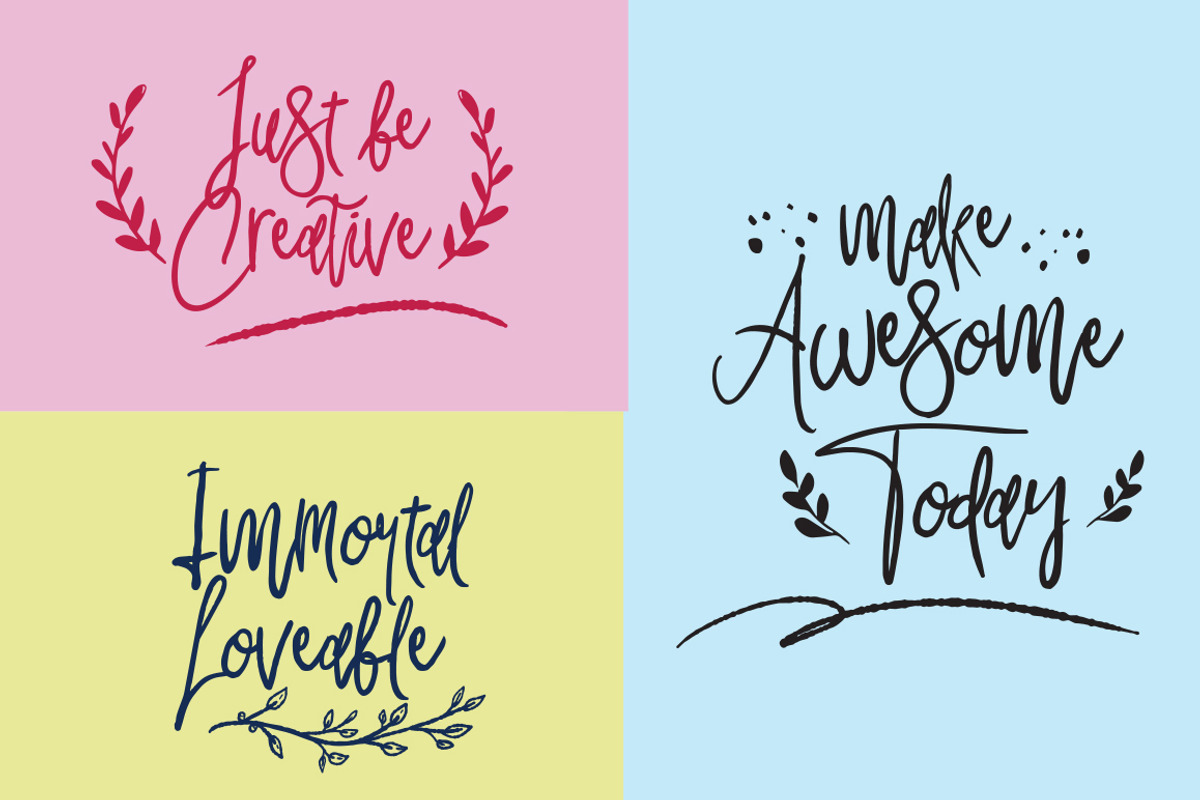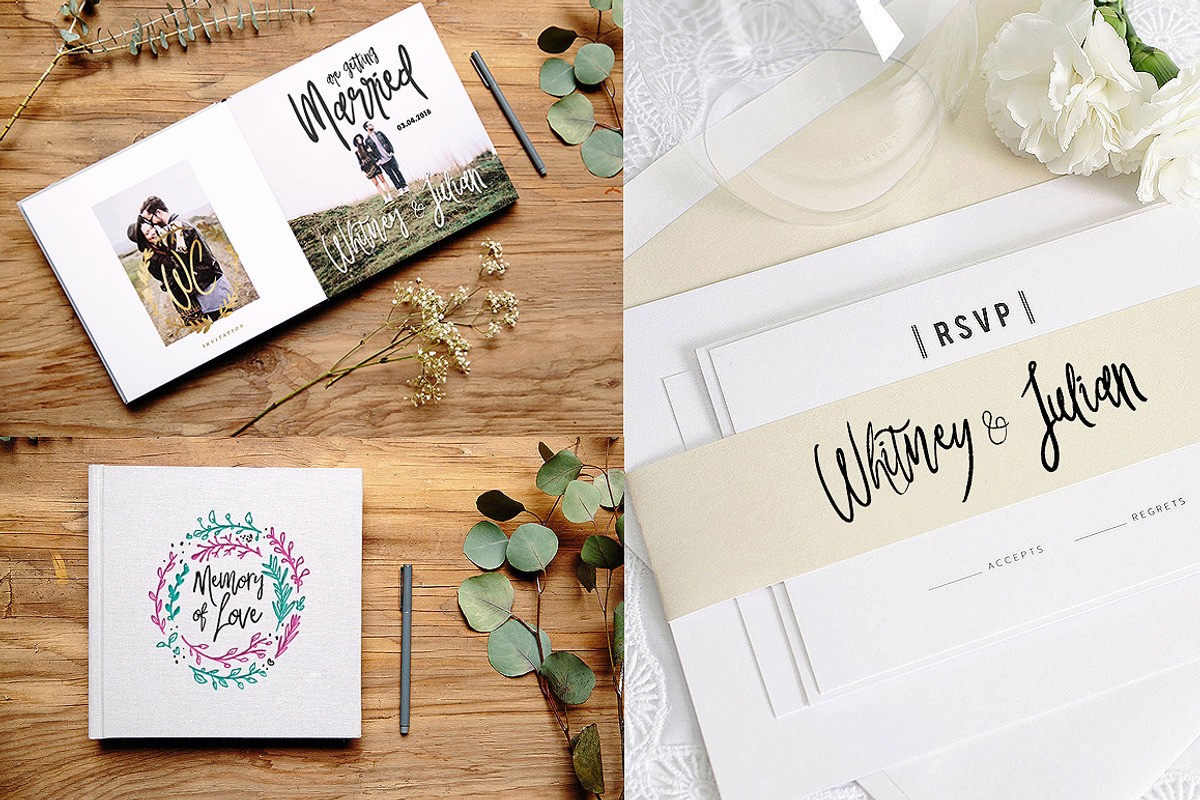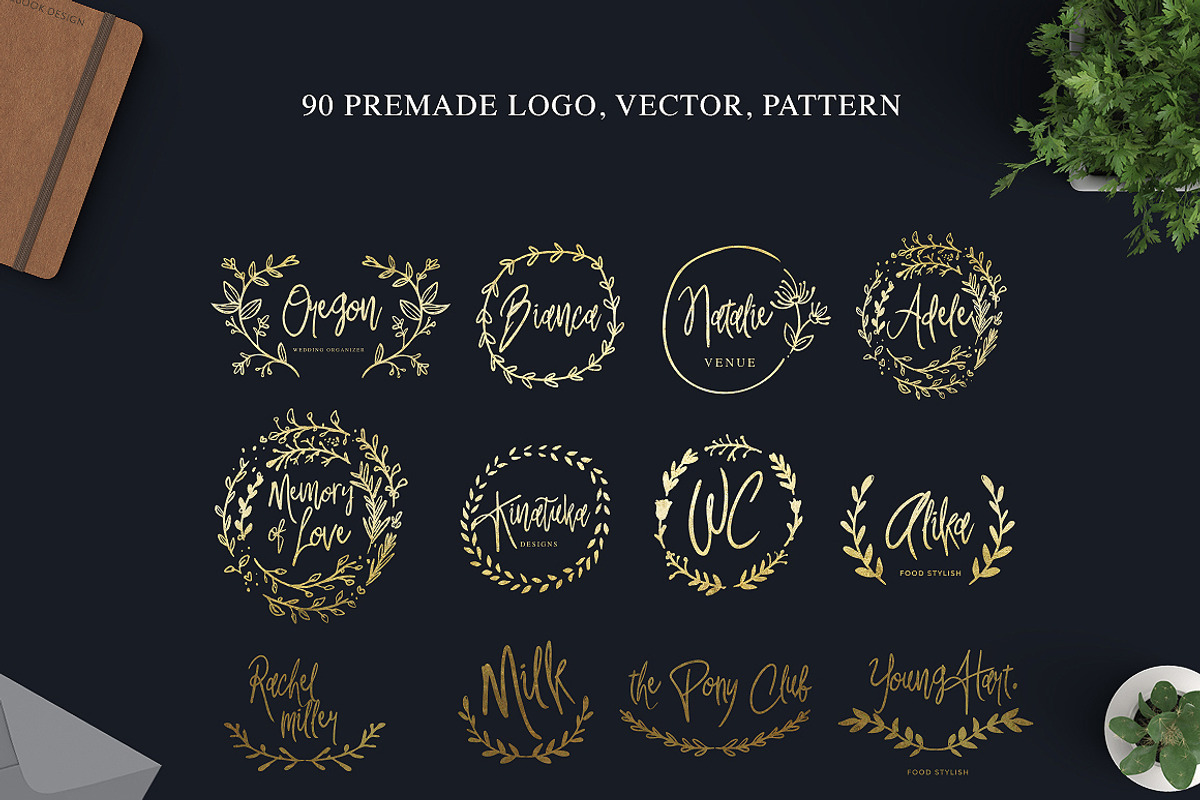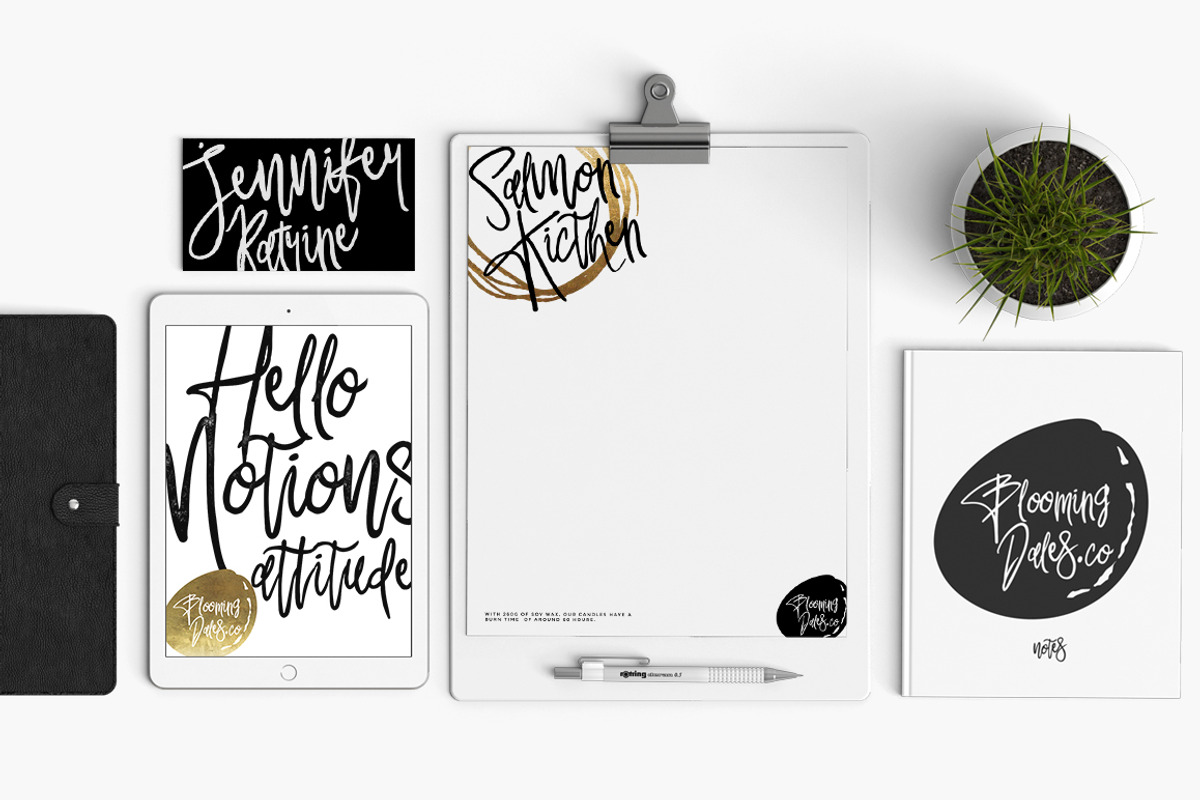
Glamour Fonts+90 logos+Pattern
Glamour Fonts+90 logos+Pattern by Fortunes Co is a font selected for branding, posters, packaging, typography.
- Glamour & Beauty available in Two lowercase style (stylistic alternates) with ligatures.
- Glamour Beauty Regular
Why Glamour Fonts+90 logos+Pattern is worth a look
Glamour Fonts+90 logos+Pattern by Fortunes Co fits naturally into Branding, posters, packaging, typography.